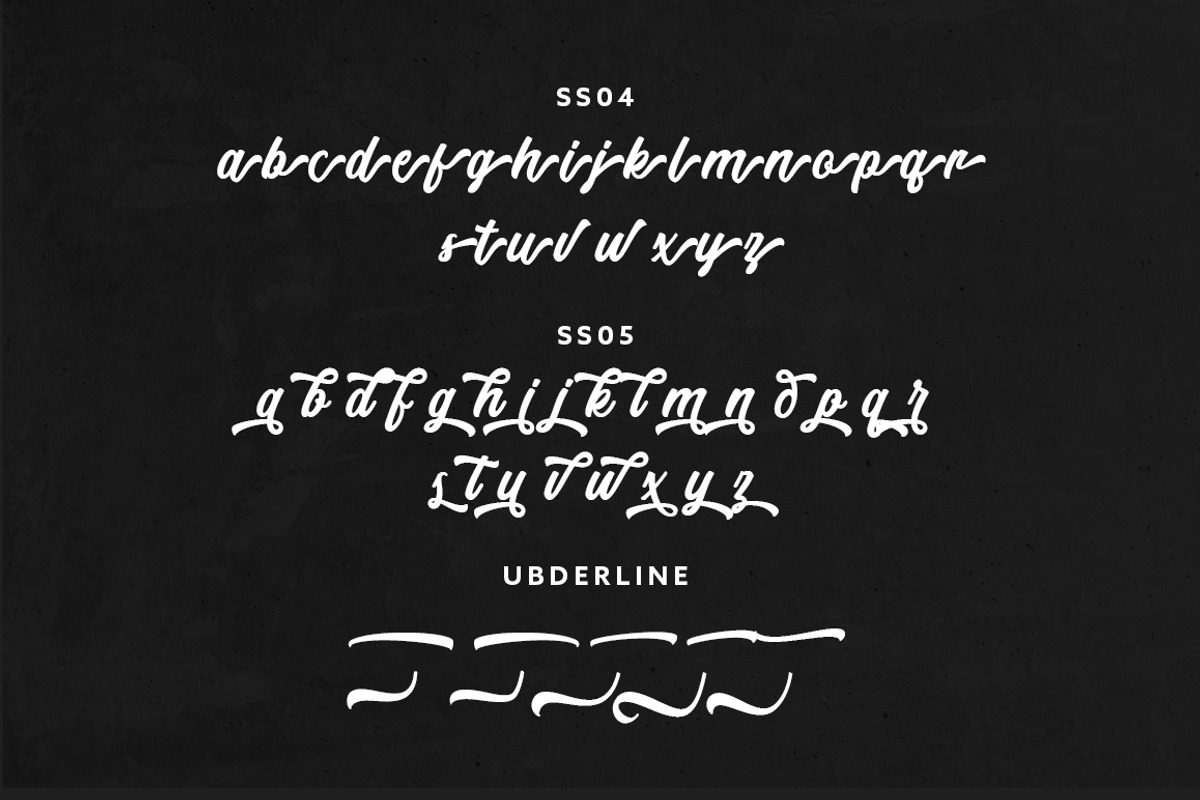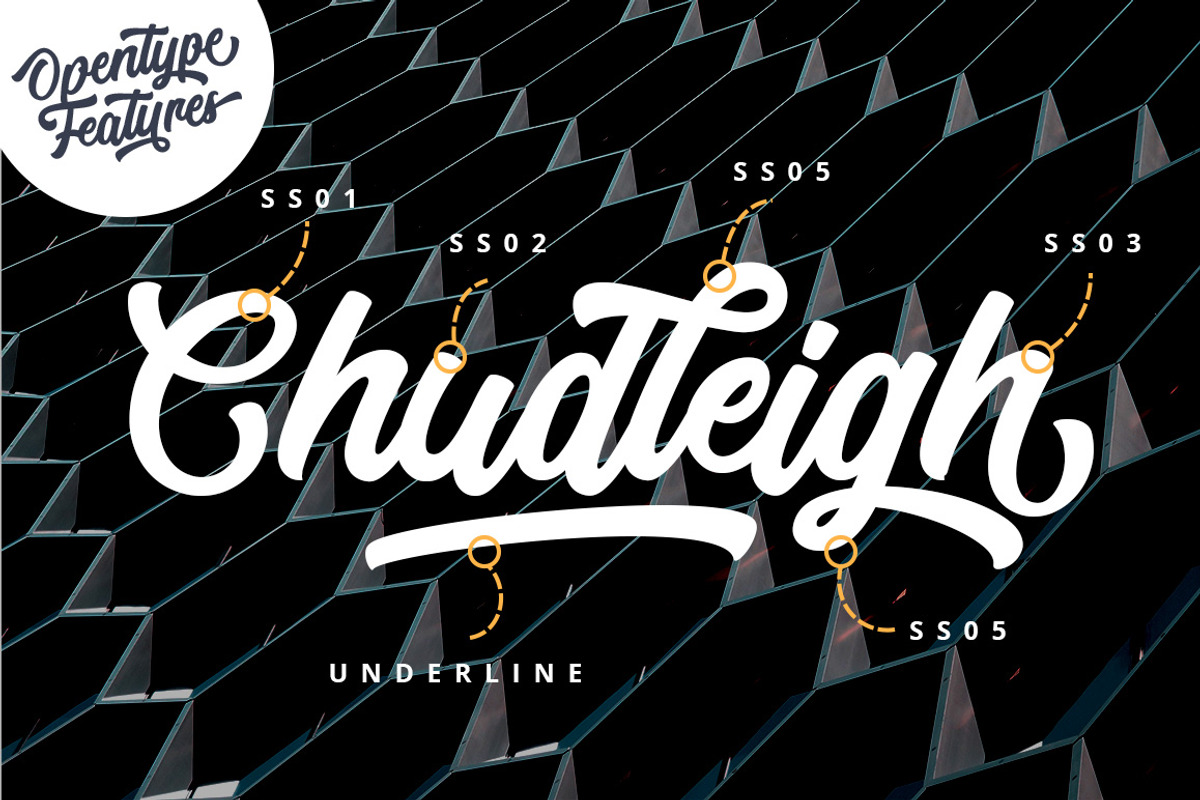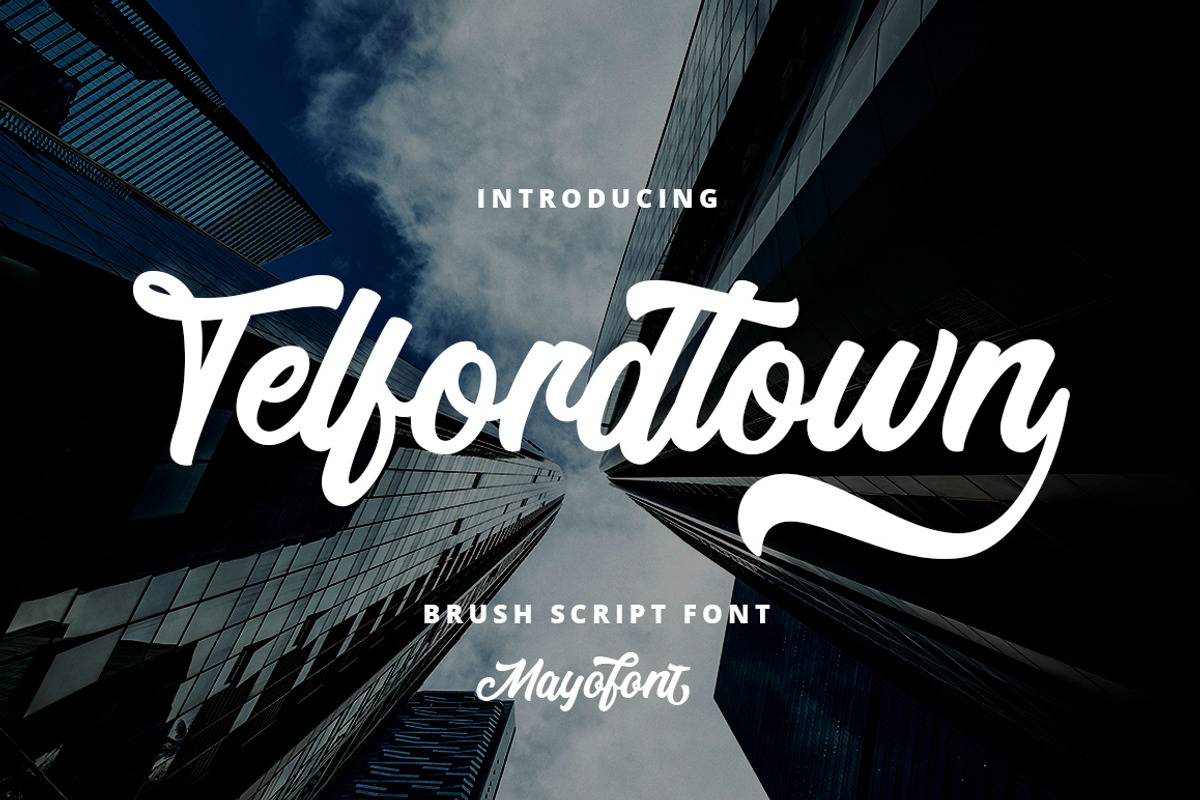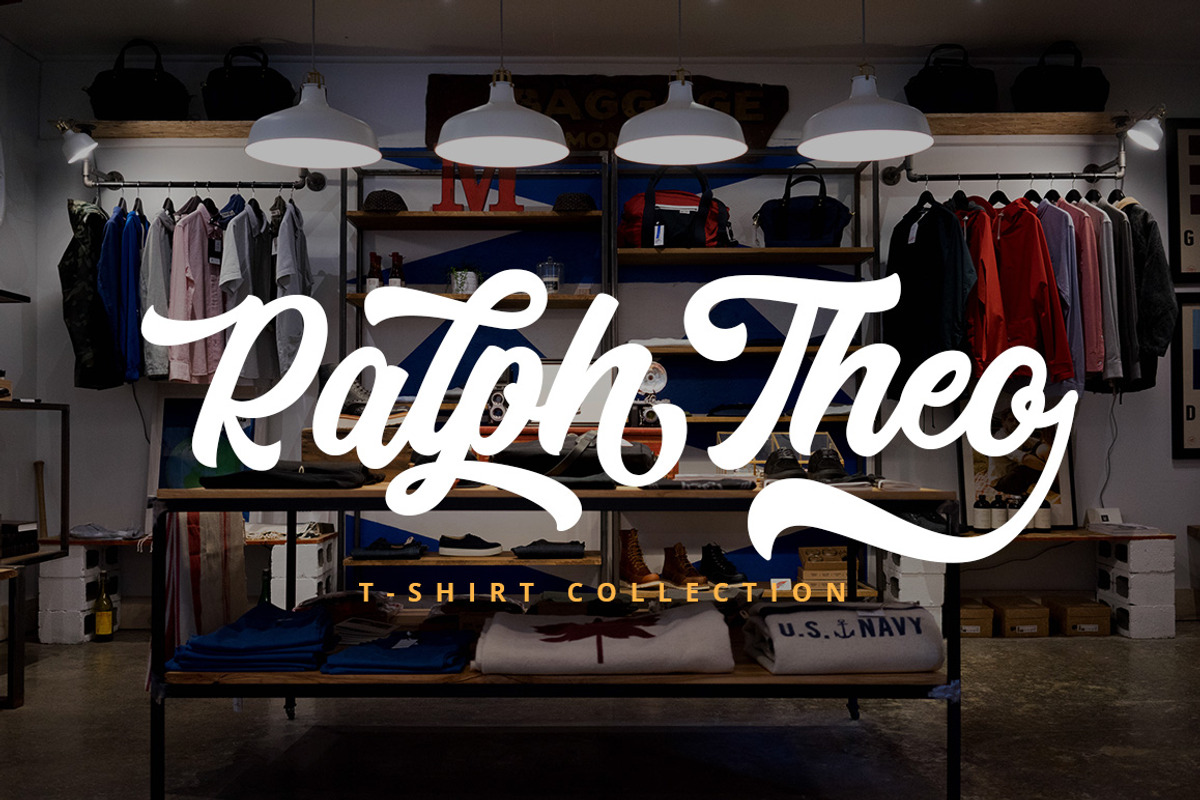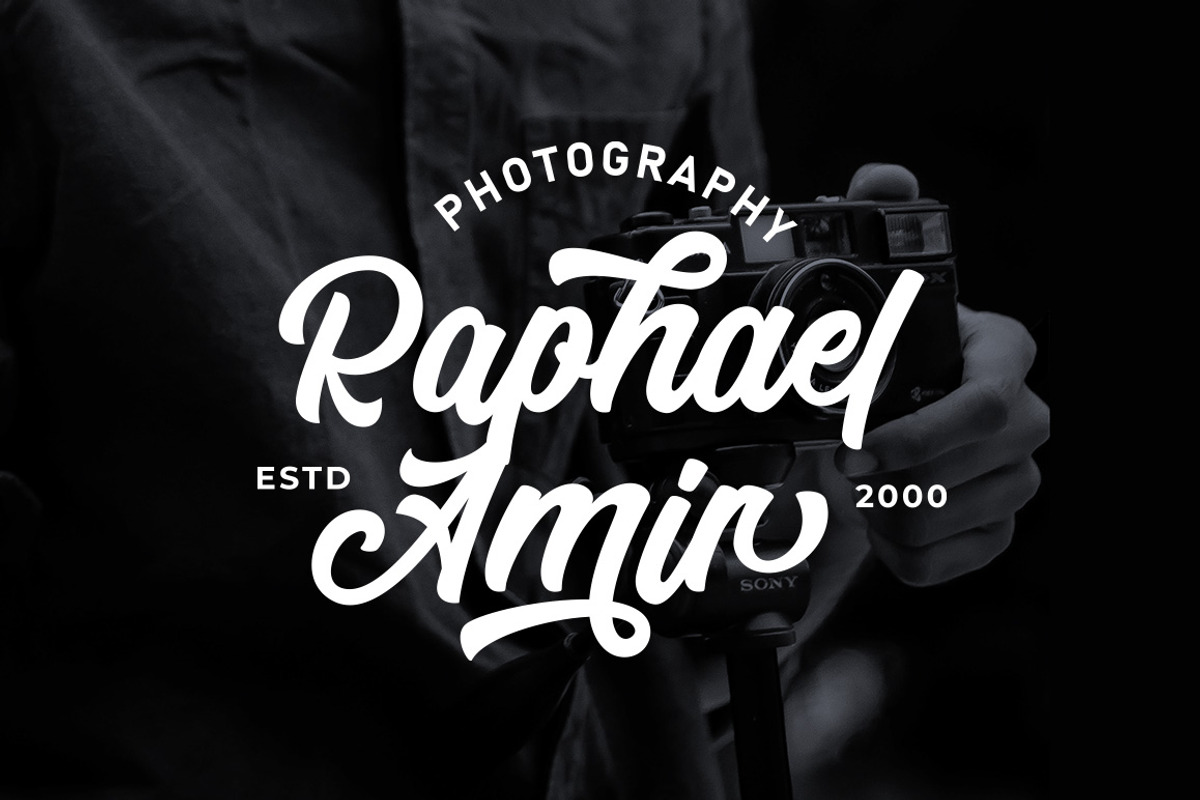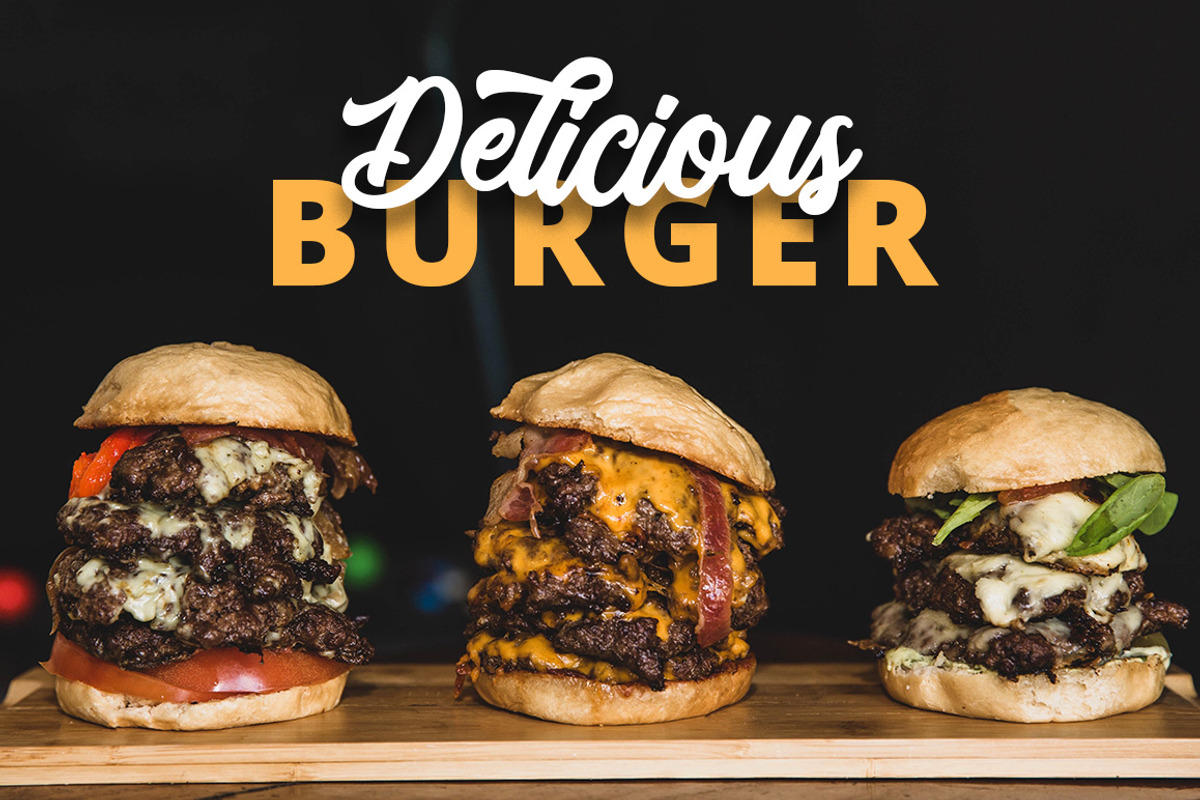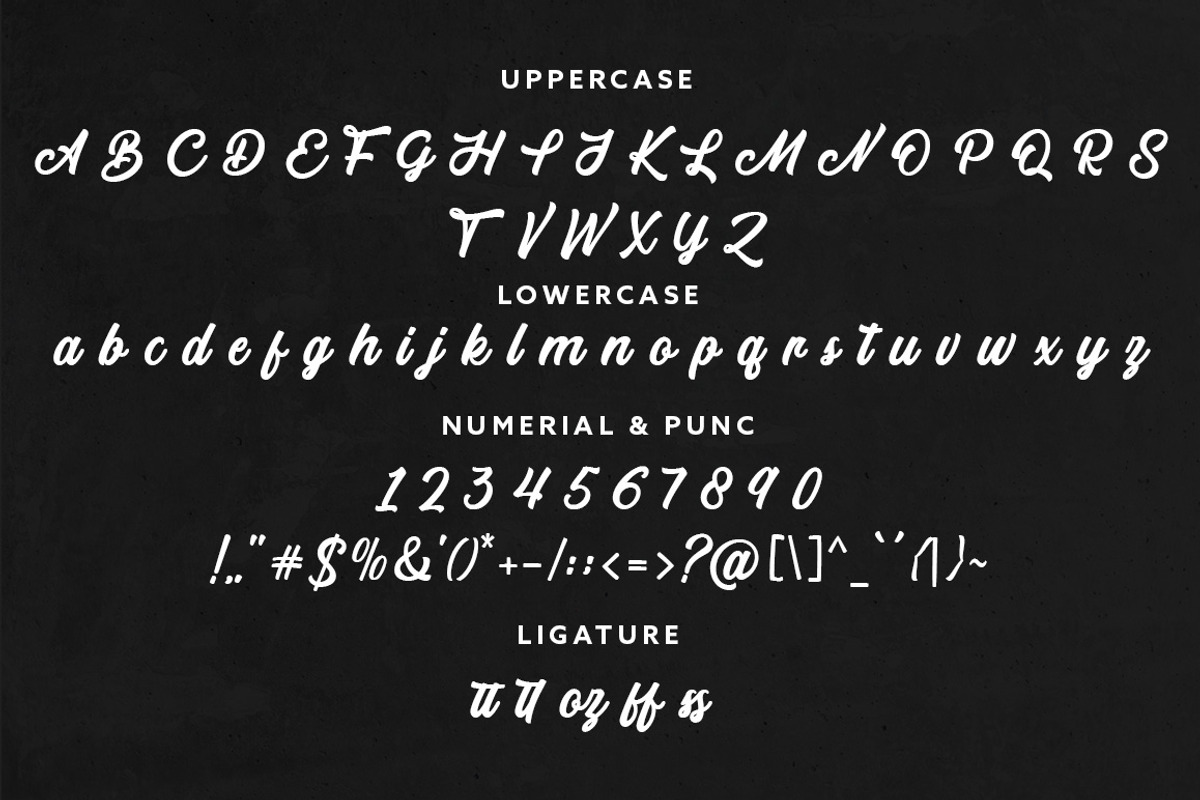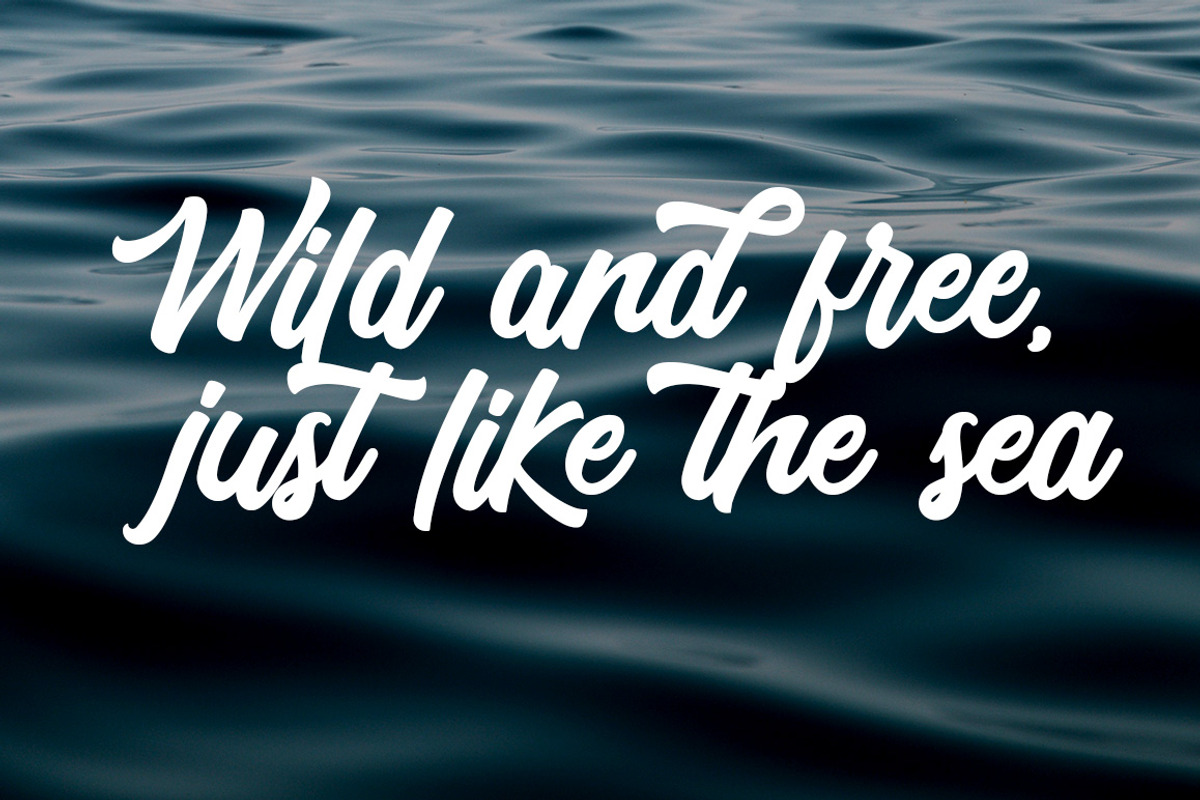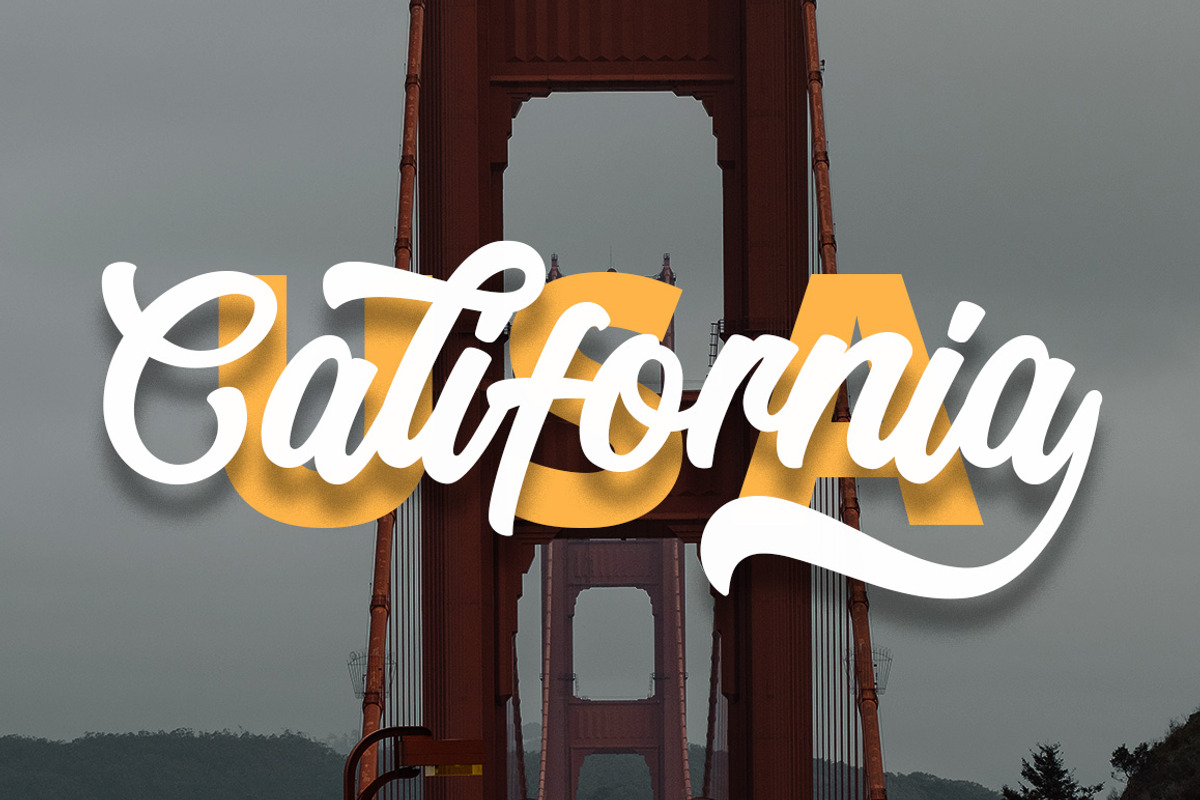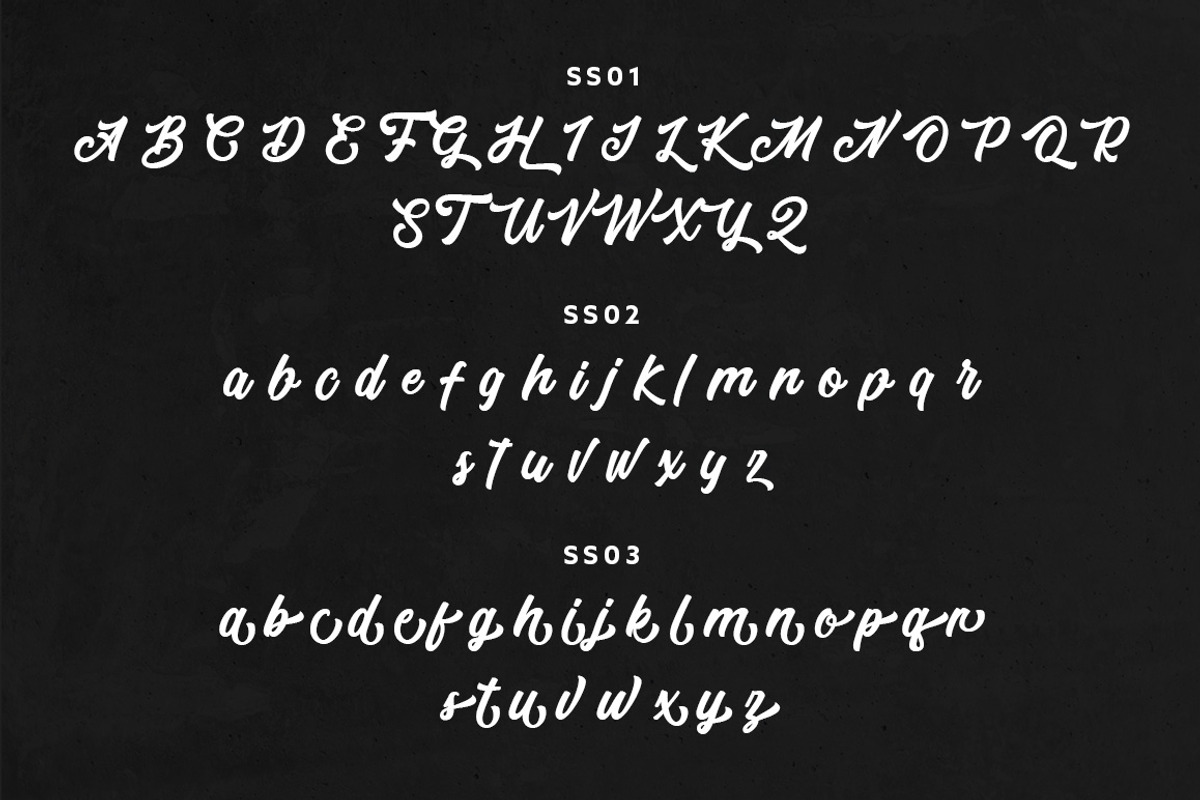
Telford Town - Bold Script Font
Telford Town Font is a very versatile handwritten font with lots of extra stylish characters that will help turn any word into a unique Logotype in seconds. You can use this font in a wide range of works such as logos, branding, covers, posters, quotes, product packaging, merchandise, social media and much more!
- 05 stylistic set alternate
- Multilingual Language